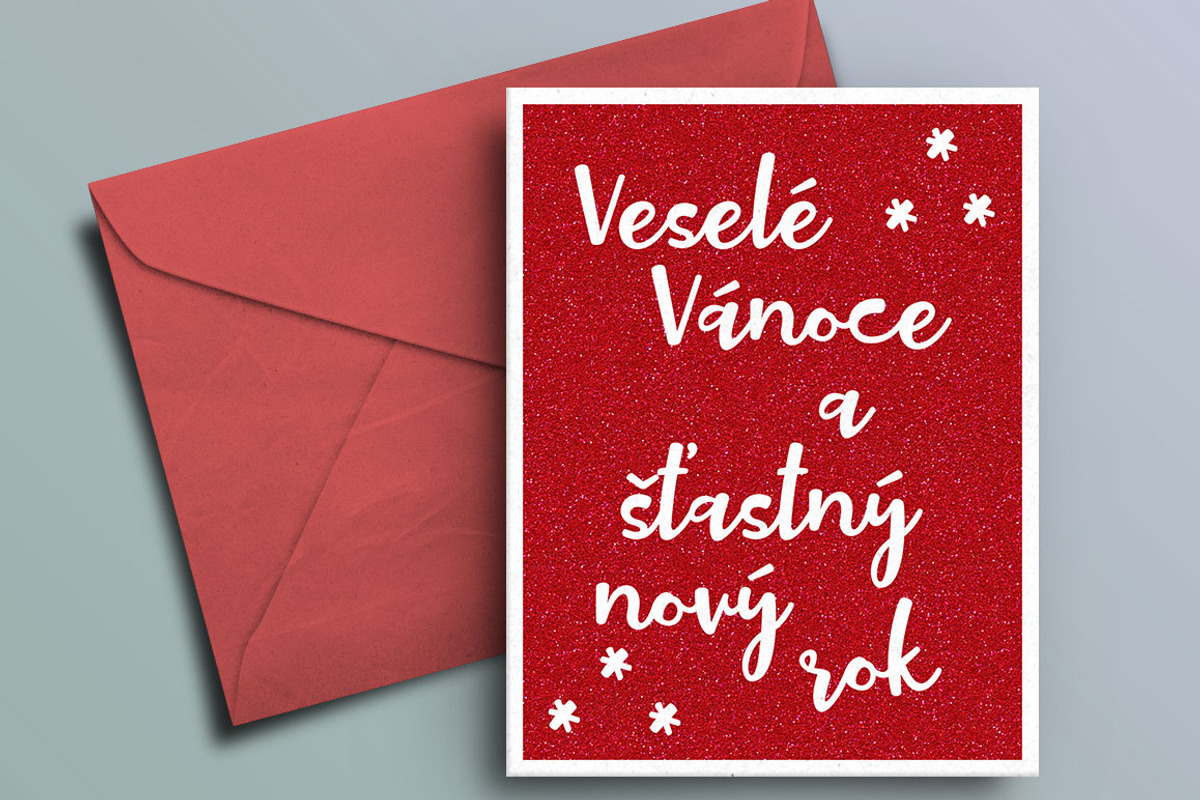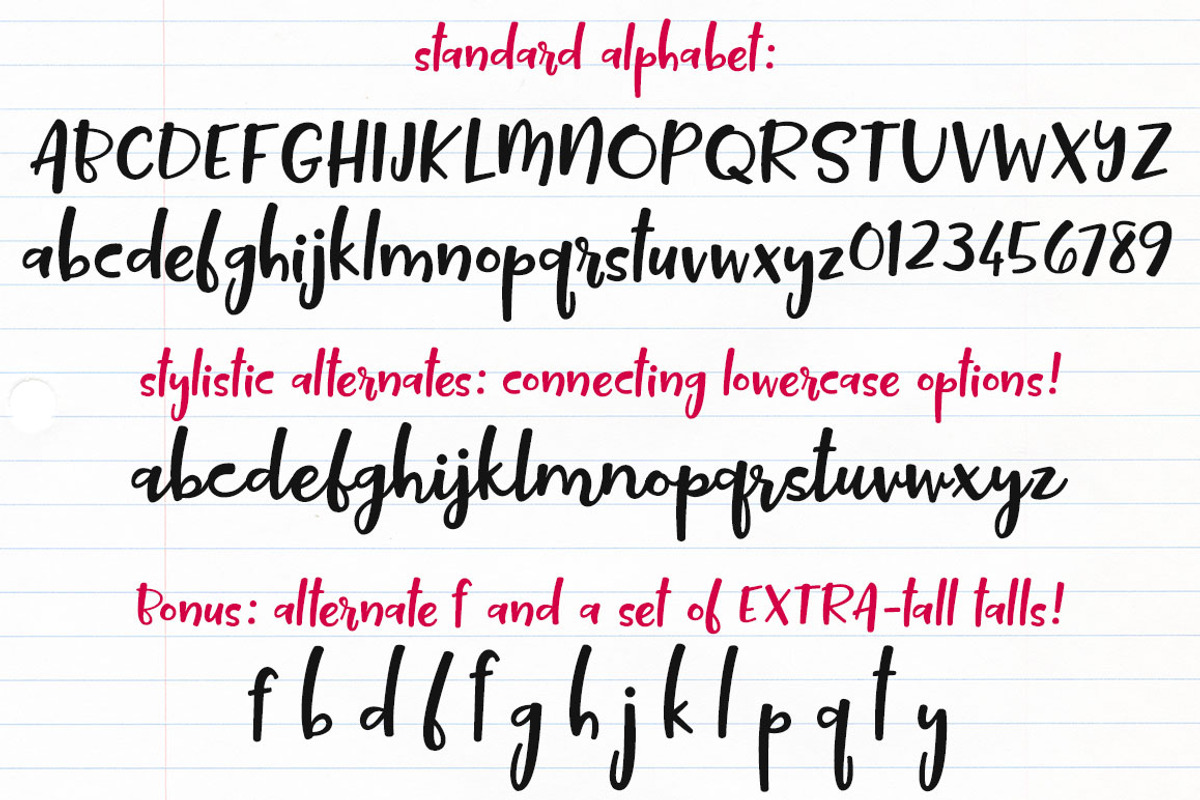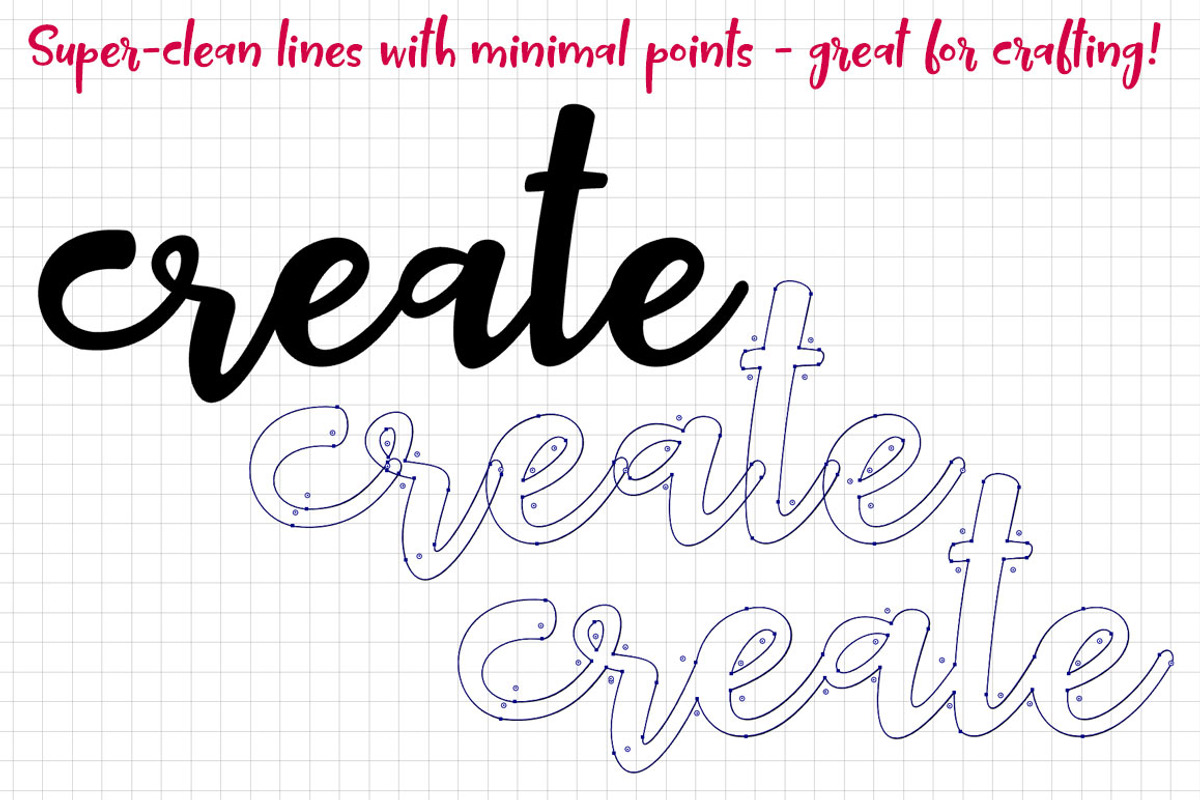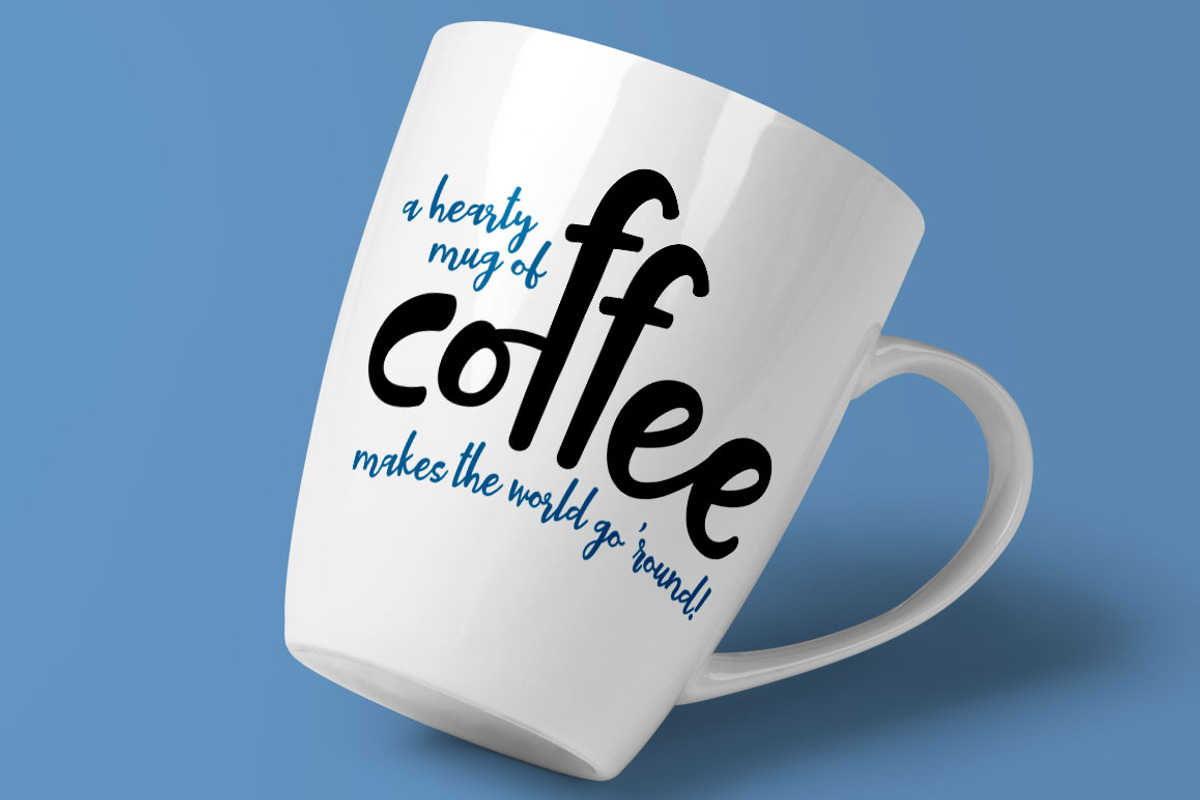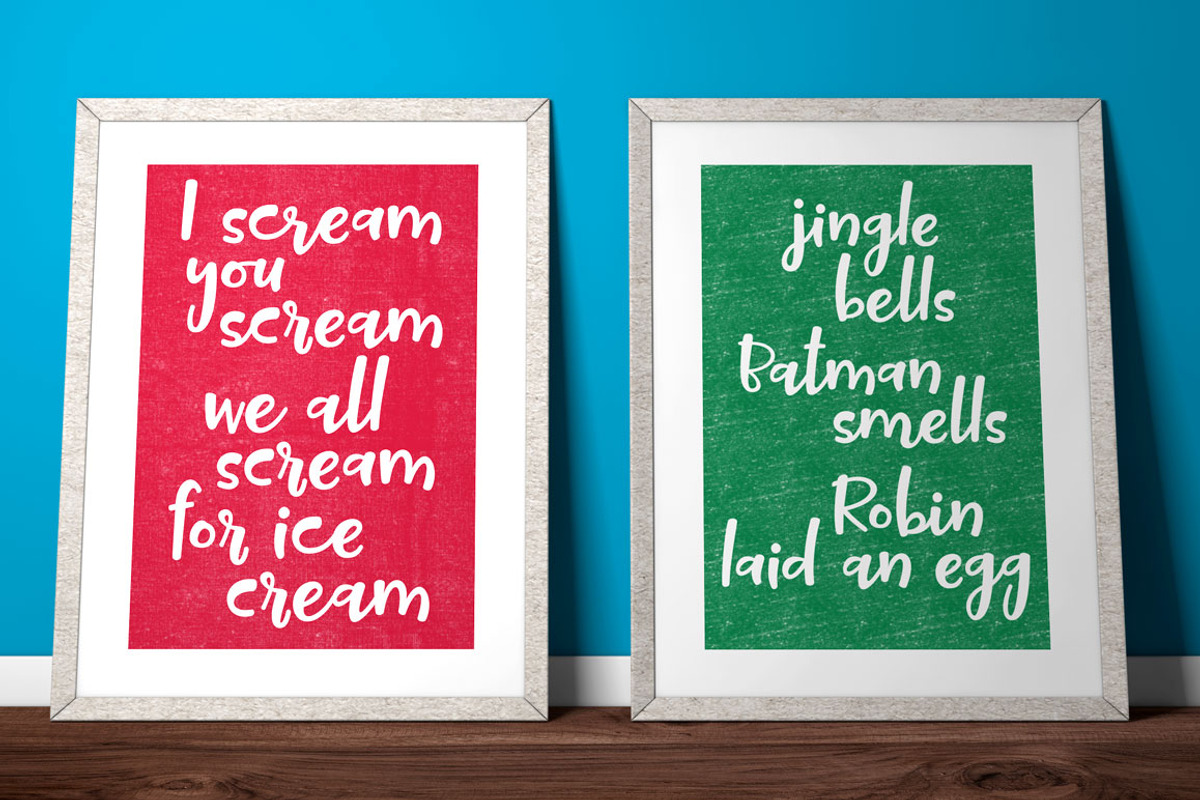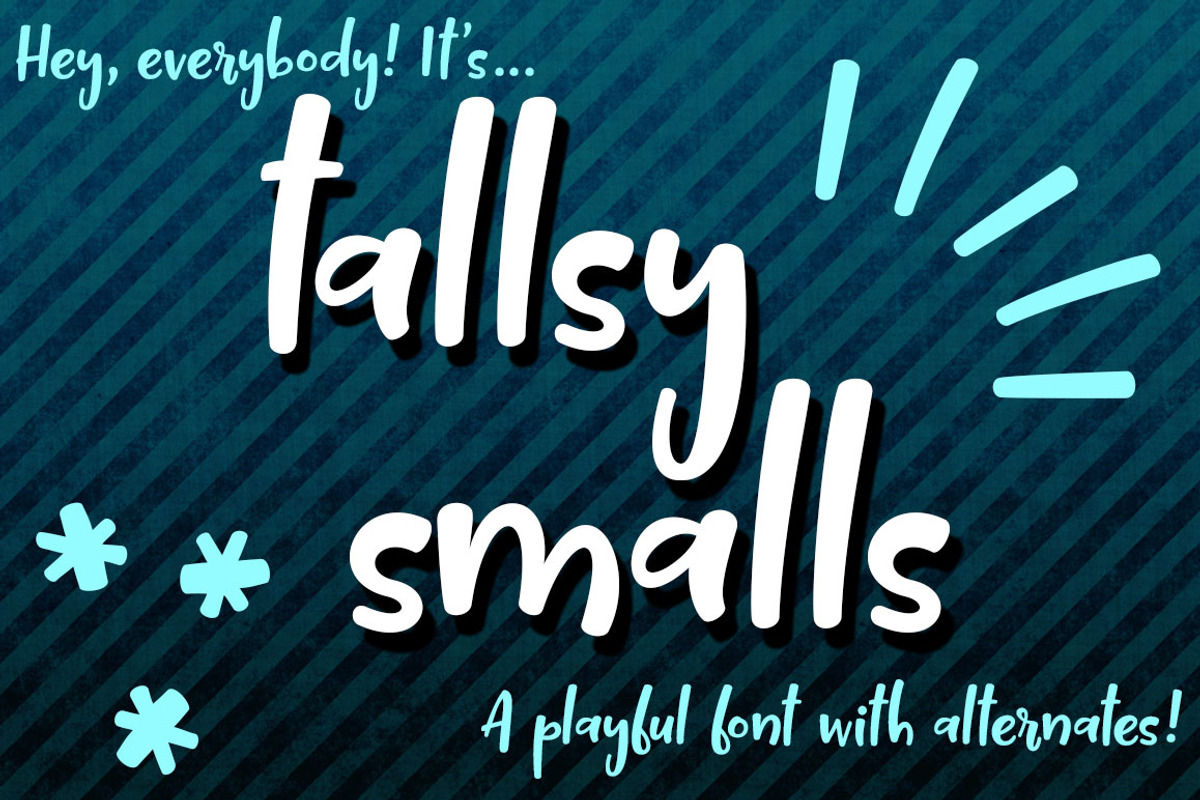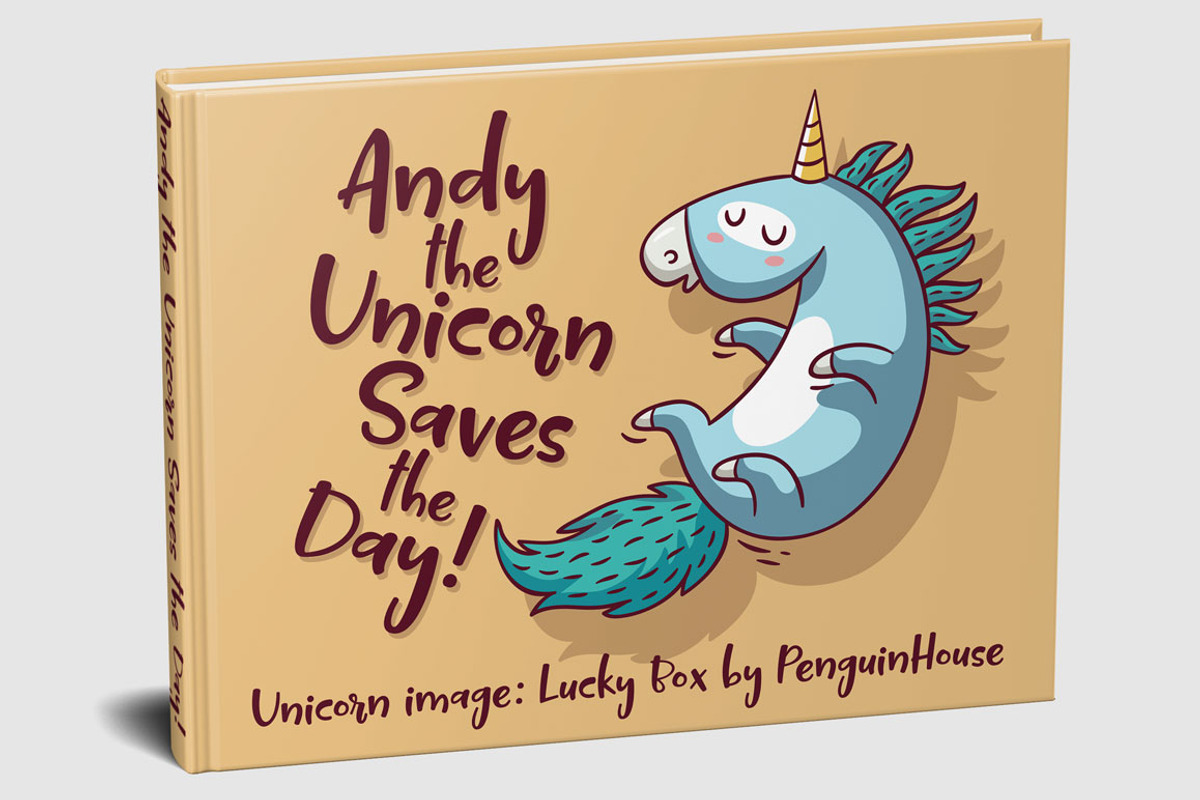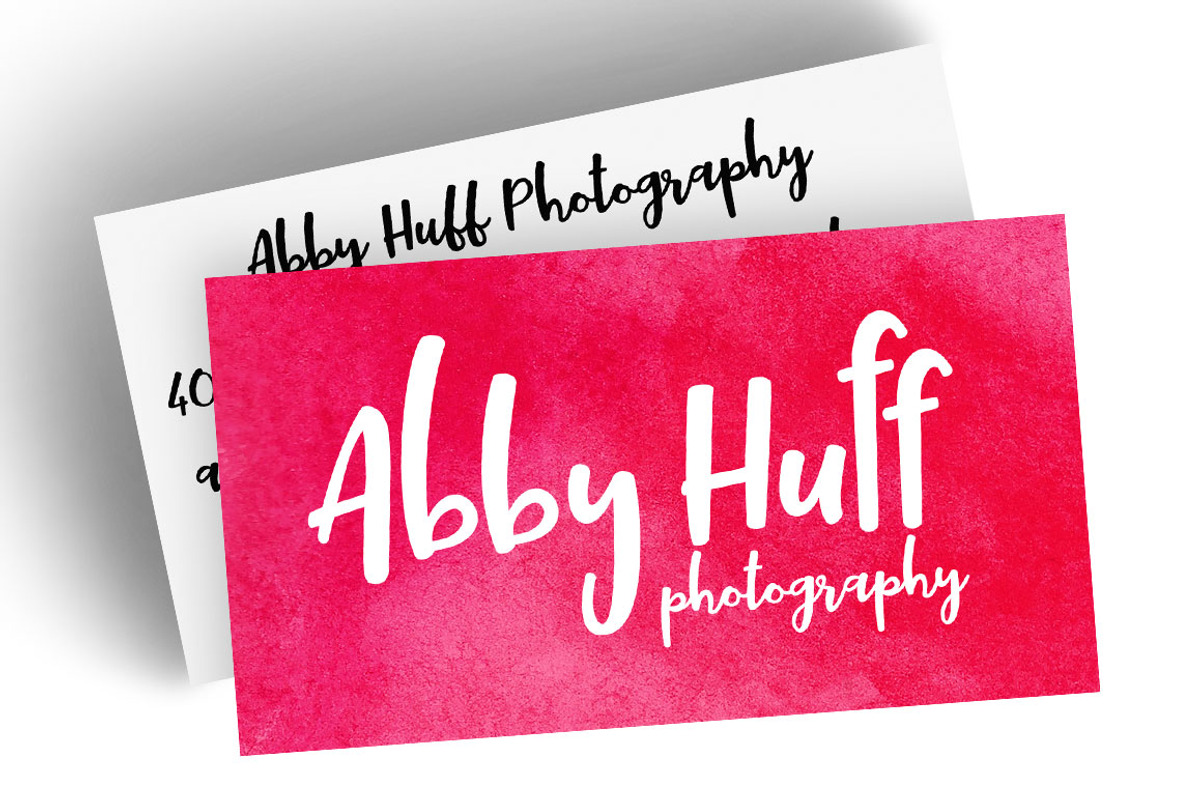
Tallsy Smalls: a fun little font
Tallsy Smalls: a fun little font by Missy Meyer is a font selected for branding, posters, packaging, typography.
- Your Tallsy Smalls download includes: Connecting stylistic alternates for all lowercase letters (OpenType feature) Numbers 0-9 and a full se
- I liked the letters so much I made an additional set of them with tails, so there's a stylistic alternate set of connectors!
- For those who like to work within one font, the connecting script letters are stylistic alternates in the regular Tallsy Smalls font file.
- But if you don't have easy access to OpenType alternates, never fear!
- (OpenType feature) Over 200 accented characters for foreign language support (based on regular letters) Fully PUA-encoded for easy character
- Tallsy Smalls Script Connecting versions of the lowercase letters from Tallsy Smalls The same uppercase, numbers, and punctuation as Tallsy
Why Tallsy Smalls: a fun little font is worth a look
Tallsy Smalls: a fun little font by Missy Meyer fits naturally into Branding, posters, packaging, typography.